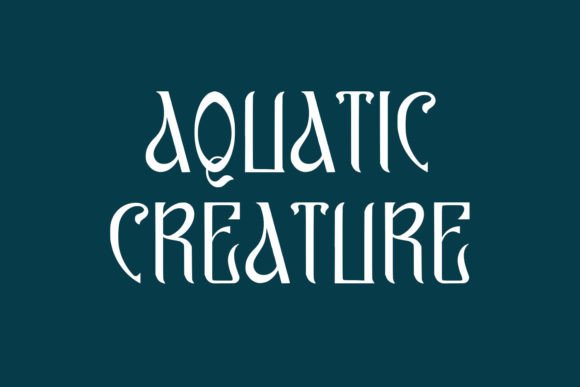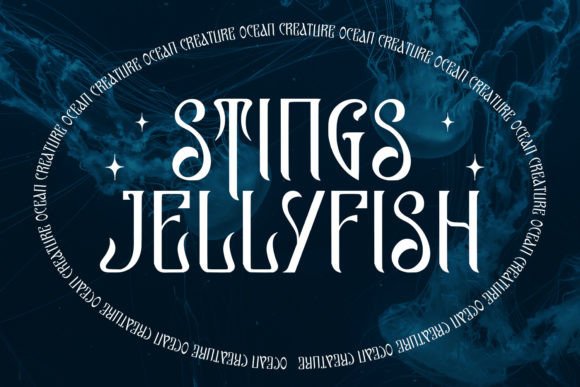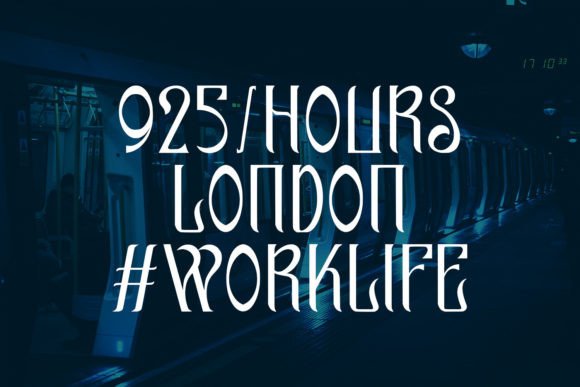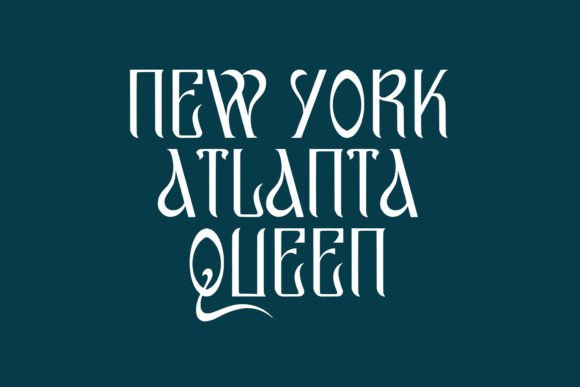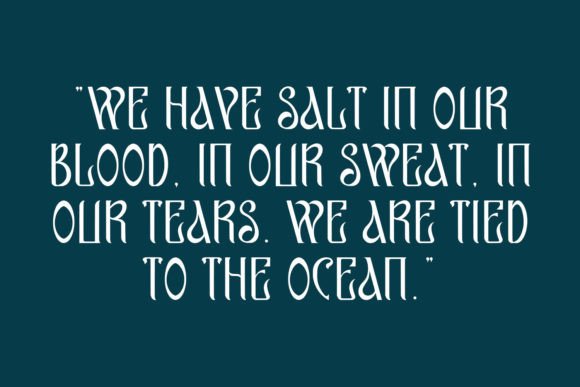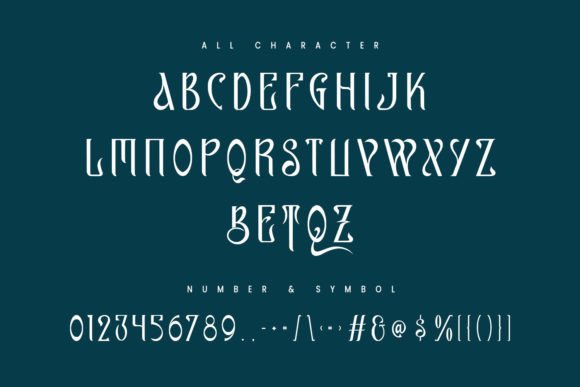
The Designer’s Delight: Getting to Know Aquizza Font
I still remember the frustration of working on a project, hours spent crafting the perfect design, only to realize that the font I chose just wasn’t cutting it. The client wanted something elegant, something that would make their brand stand out, but I was stuck with a bland, generic font that just didn’t have the wow factor. That’s when I discovered Aquizza Font, a stylish and decorative font that instantly elevated my designs. In this article, I’ll share my experience with Aquizza, its features, and how to make the most of it in your designs.
An Honest Review of Aquizza Font
Aquizza Font has quickly become a favorite in my design toolkit, and for good reason. Here are some things I love about it:
- ✨ Unique and decorative: Aquizza’s distinctive shapes and decorative touches make it perfect for headlines, logos, and creative designs that need a touch of elegance.
- ✅ Elegant and sophisticated: This font exudes refinement and poise, making it ideal for luxury brands, high-end products, or sophisticated designs.
- 💡 Versatile: Aquizza can be used in a variety of design contexts, from digital media to print materials.
Of course, no font is perfect, and Aquizza has a few quirks:
- 🤔 Not suitable for body text: Due to its decorative nature, Aquizza is best used for headlines and titles, rather than large blocks of text.
- ⚠️ Limited legibility at small sizes: As with many decorative fonts, Aquizza can be difficult to read at small font sizes.
The Story Behind Aquizza Font
Aquizza Font was designed with elegance and sophistication in mind. Its creator, a talented typographer, aimed to craft a font that would add a touch of luxury to any design. Inspired by classic calligraphy and refined typography, Aquizza is the perfect choice for designers seeking a high-end look.
| Font Name | Aquizza Font |
| What type of designs is Aquizza best suited for? | Headlines, logos, and creative designs that require a touch of elegance. |
| Can I use Aquizza for body text? | No, Aquizza is best used for titles and headings due to its decorative nature. |
| Is Aquizza available in different weights or styles? | Yes, Aquizza comes in various weights and styles to suit different design needs. |